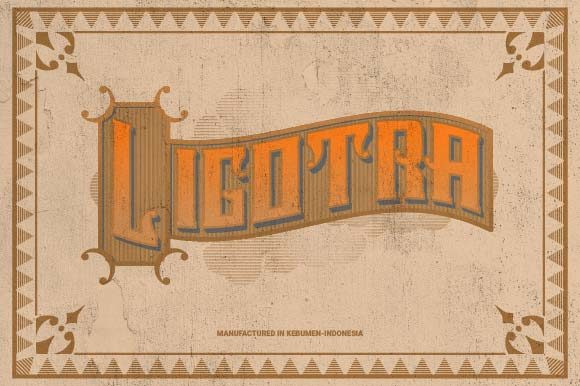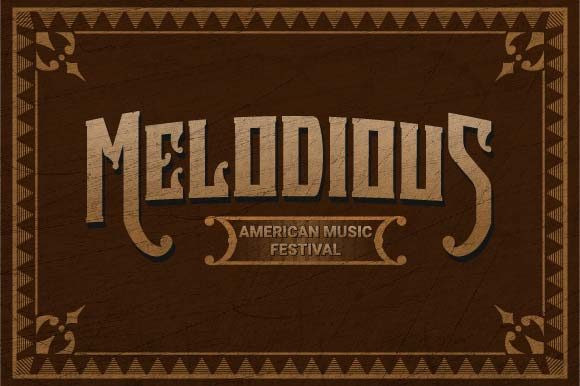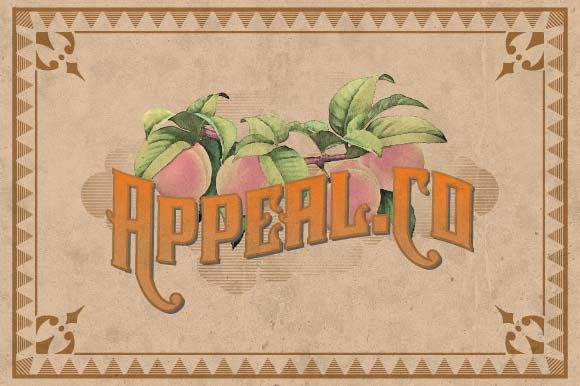
Ligotra Font
Ligotra is a bold, vintage styled and assertive display font. Thick lettered and distinct, this font will make each of your designs stand out.